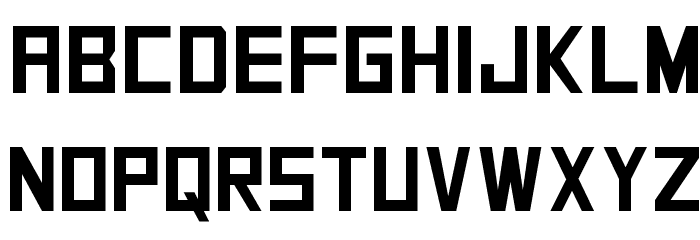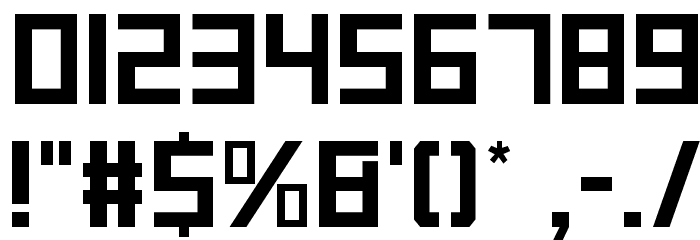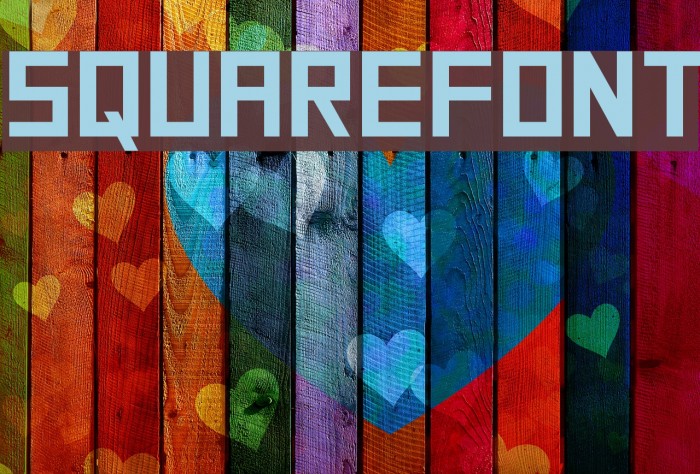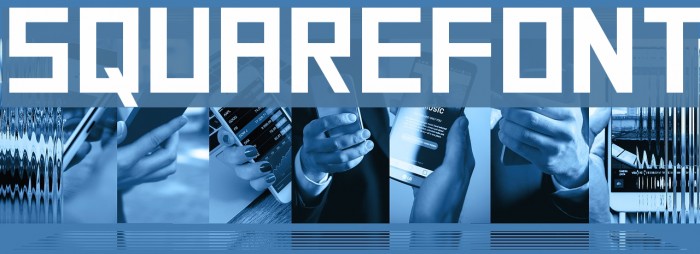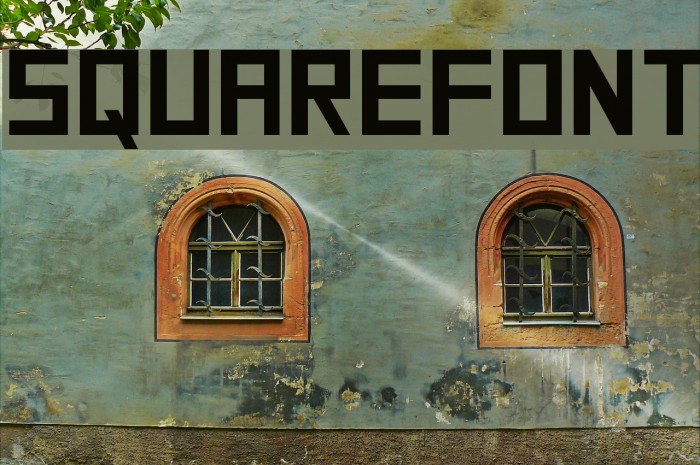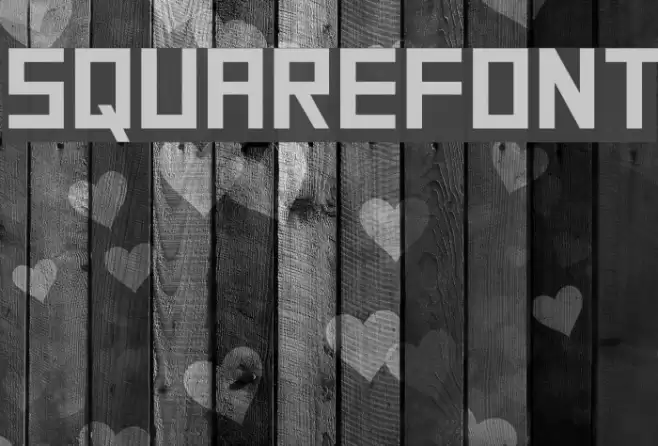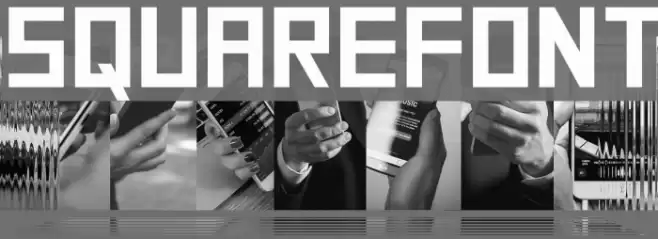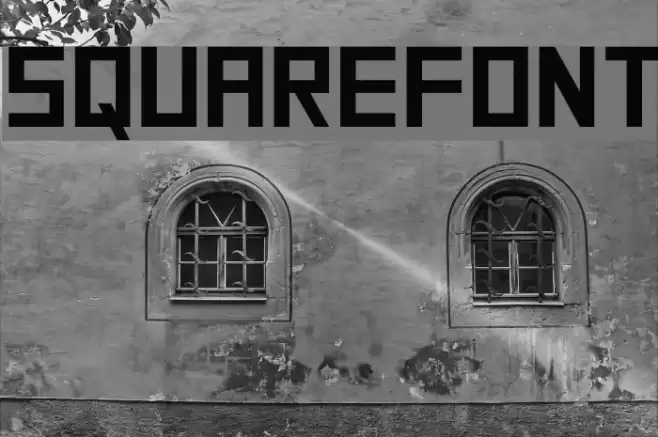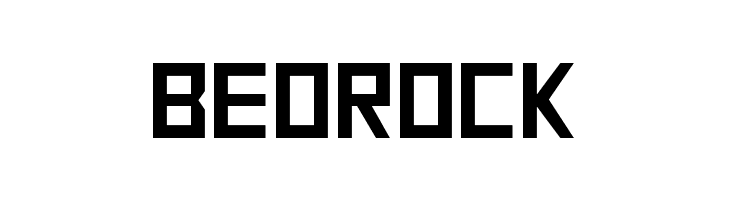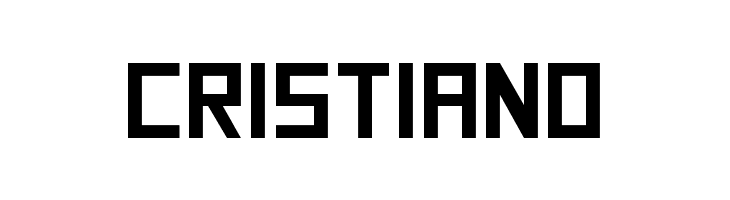
SquareFont Font
This font features a bold, geometric style with a strong emphasis on square and rectangular shapes. The characters are uniformly structured, giving a cohesive and modern appearance. The uppercase and lowercase letters maintain a consistent height, contributing to a monospaced feel. The numbers and special characters follow the same design principles, ensuring a seamless integration across all text elements. The font's sharp angles and clean lines make it highly legible, even at smaller sizes, while its boldness ensures it stands out in any design context.
A bold, geometric font with a modern, monospaced appearance.
- Proposed Projects: Ideal for technology branding, modern posters, digital interfaces, and video game design.
- Use Case: Headlines, Logos, Digital Interfaces